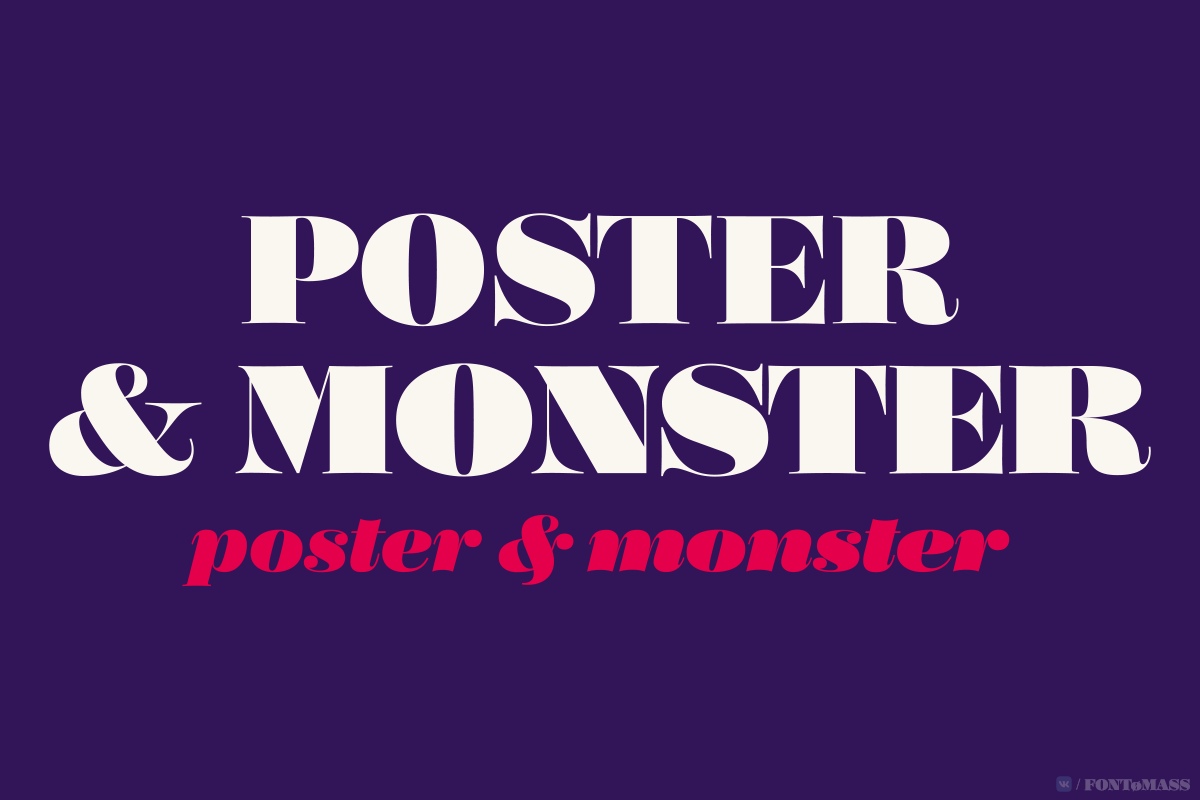
Poster Font
Poster Font is perfect for bold advertising campaigns, theatrical performance promotions, concert venue signage, exhibition announcements, entertainment marketing, dramatic poster design, attention-grabbing headlines, and impactful visual communications. This commanding typeface works exceptionally well in both digital applications and print media where maximum visual impact and promotional power are fundamental design requirements.
What makes Poster Font so exciting is its authoritative interpretation of classic poster typography through bold letterforms that seem designed with the same commanding presence and promotional power that made vintage advertising posters impossible to ignore. The font features dramatic characters with poster-scale proportions, attention-grabbing curves, and promotional details that communicate urgency, excitement, and the compelling force necessary to capture attention in crowded visual environments. Its promotional personality and advertising heritage make it ideal for entertainment brands seeking to dominate visual landscapes while appealing to audiences who respond to bold, direct communication and dramatic visual statements.
The Poster Font family includes multiple weight variations from bold to ultra-black, along with condensed styles and promotional alternates. Each style maintains the typeface's commanding character while offering comprehensive character sets including dramatic numerals, attention-focused punctuation marks, and special symbols designed to enhance promotional communications and bold advertising efforts across various entertainment contexts.
This extraordinary typeface represents the perfect fusion of advertising tradition and contemporary promotional functionality for entertainment and marketing industries. Whether you're developing concert promotion identities, creating theatrical advertising materials, or designing bold marketing campaigns, Poster Font Free Download delivers the promotional impact and versatility needed to dominate attention in competitive environments. The font's advertising appeal makes it particularly effective for entertainment venues, promotional agencies, event marketing companies, and businesses requiring maximum visual impact and the commanding presence that defines successful poster advertising.
The meticulously engineered promotional construction and optimized advertising performance in Poster Font ensure maximum visual dominance while maintaining clear communication across all promotional applications. Its commanding presence makes it ideal for advertising branding, promotional marketing materials, and attention-grabbing communications where its full poster character can create unforgettable impressions and establish immediate association with excitement, entertainment, and the bold promotional power that defines successful visual advertising.